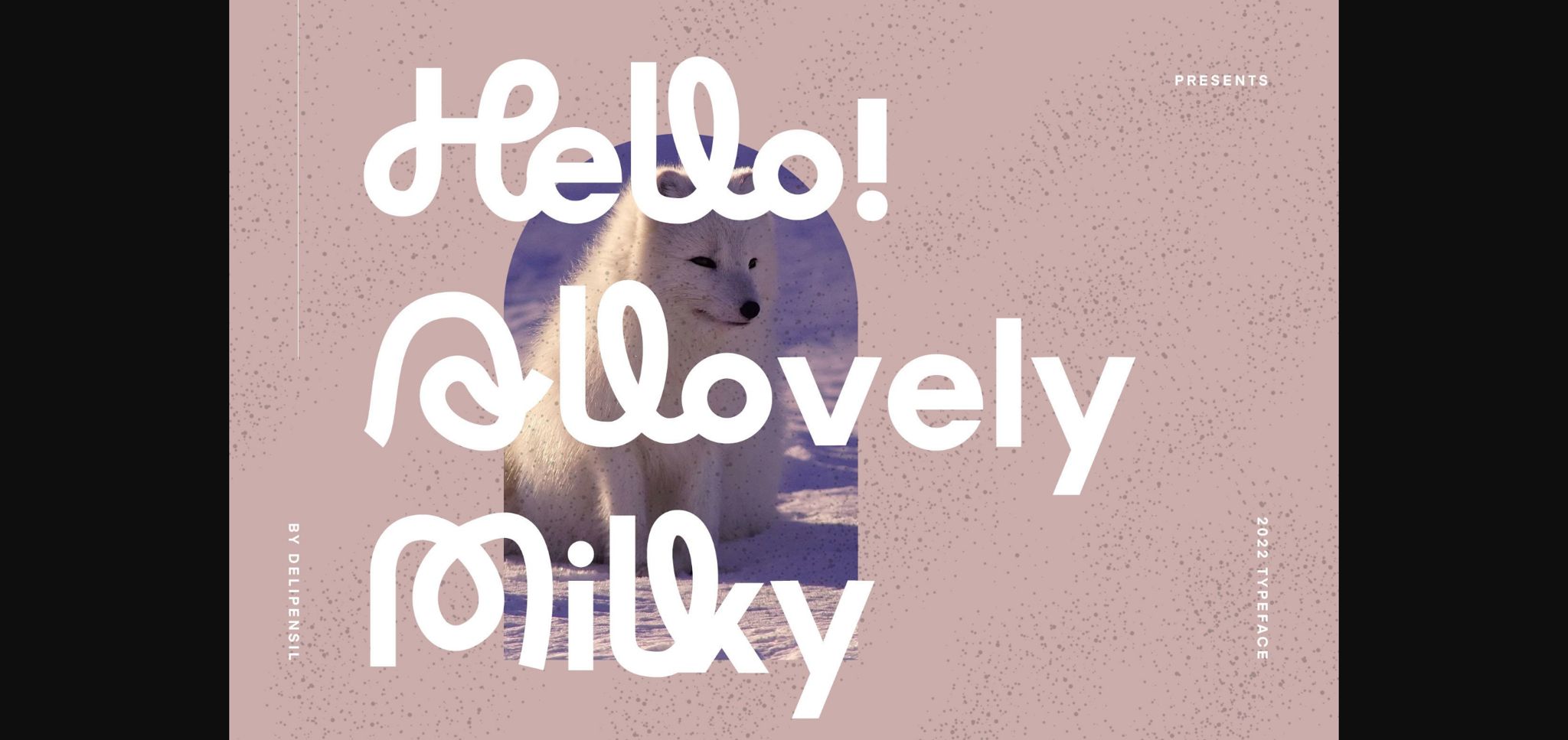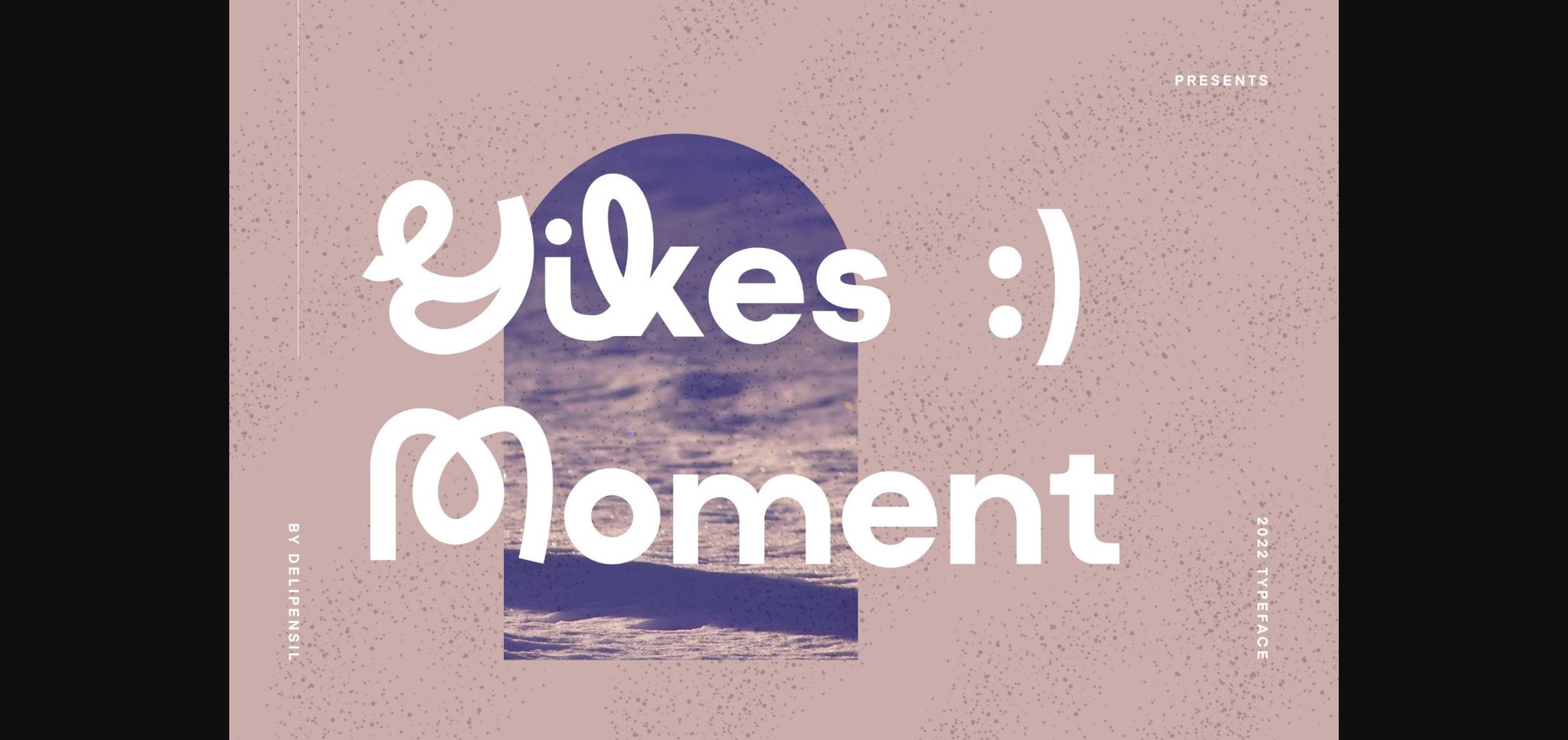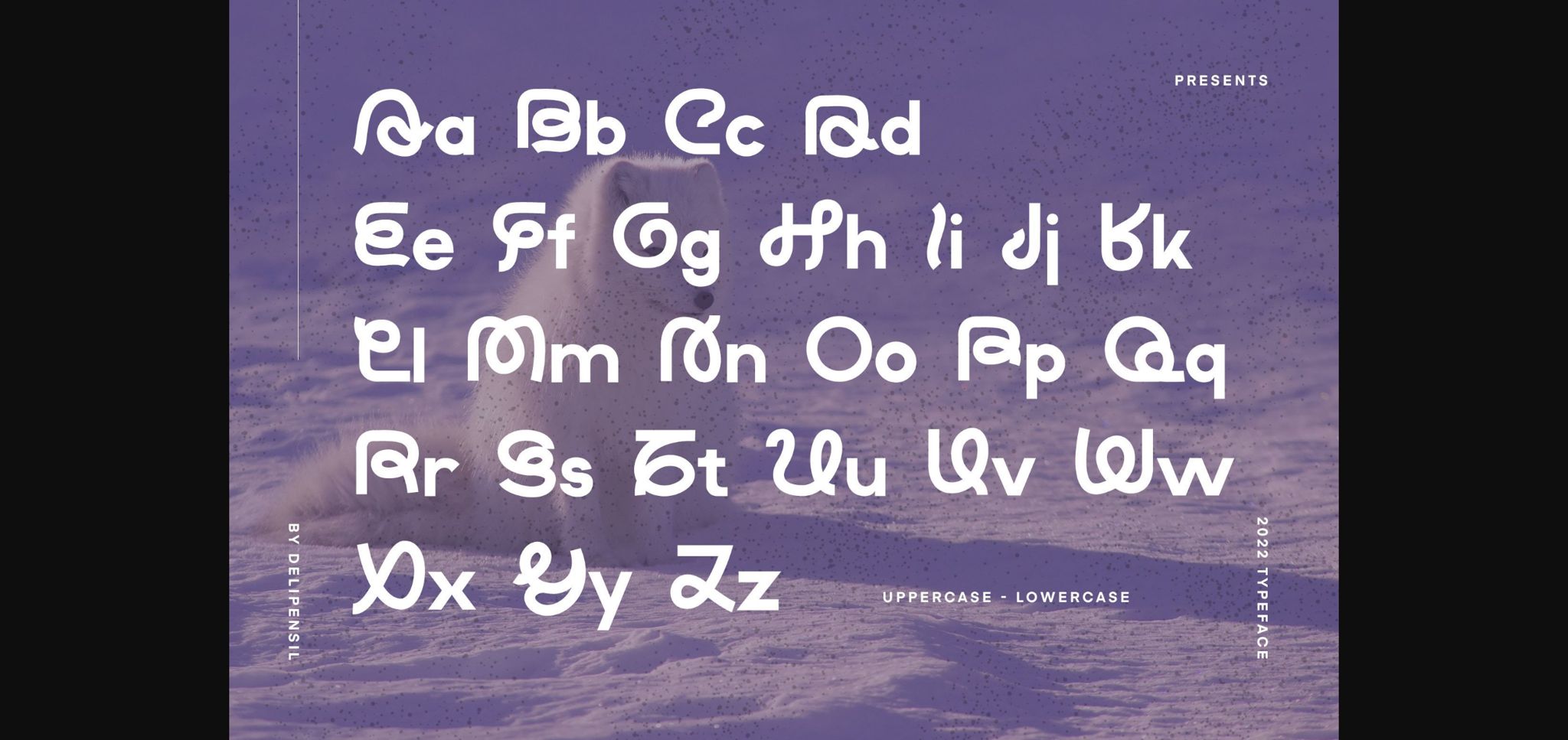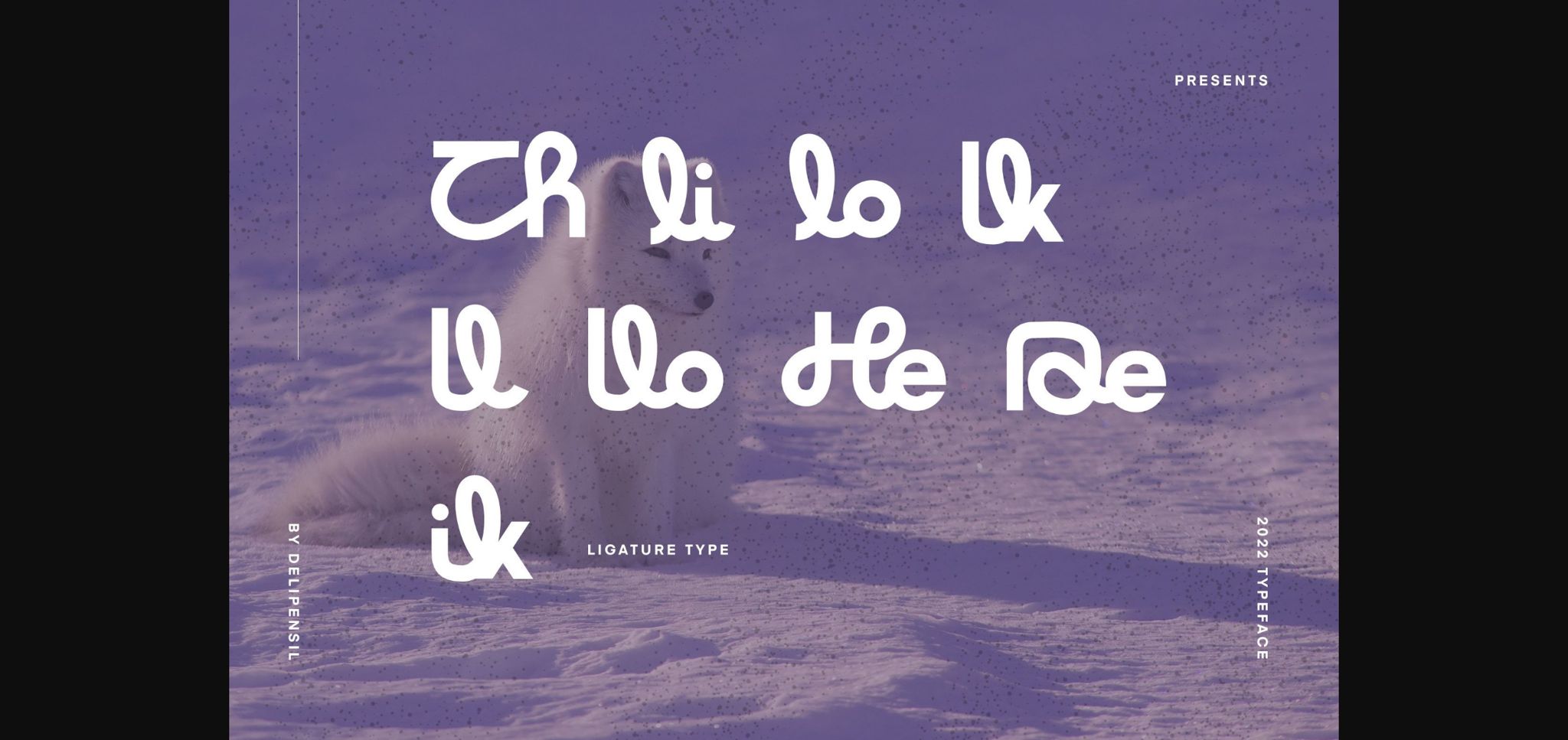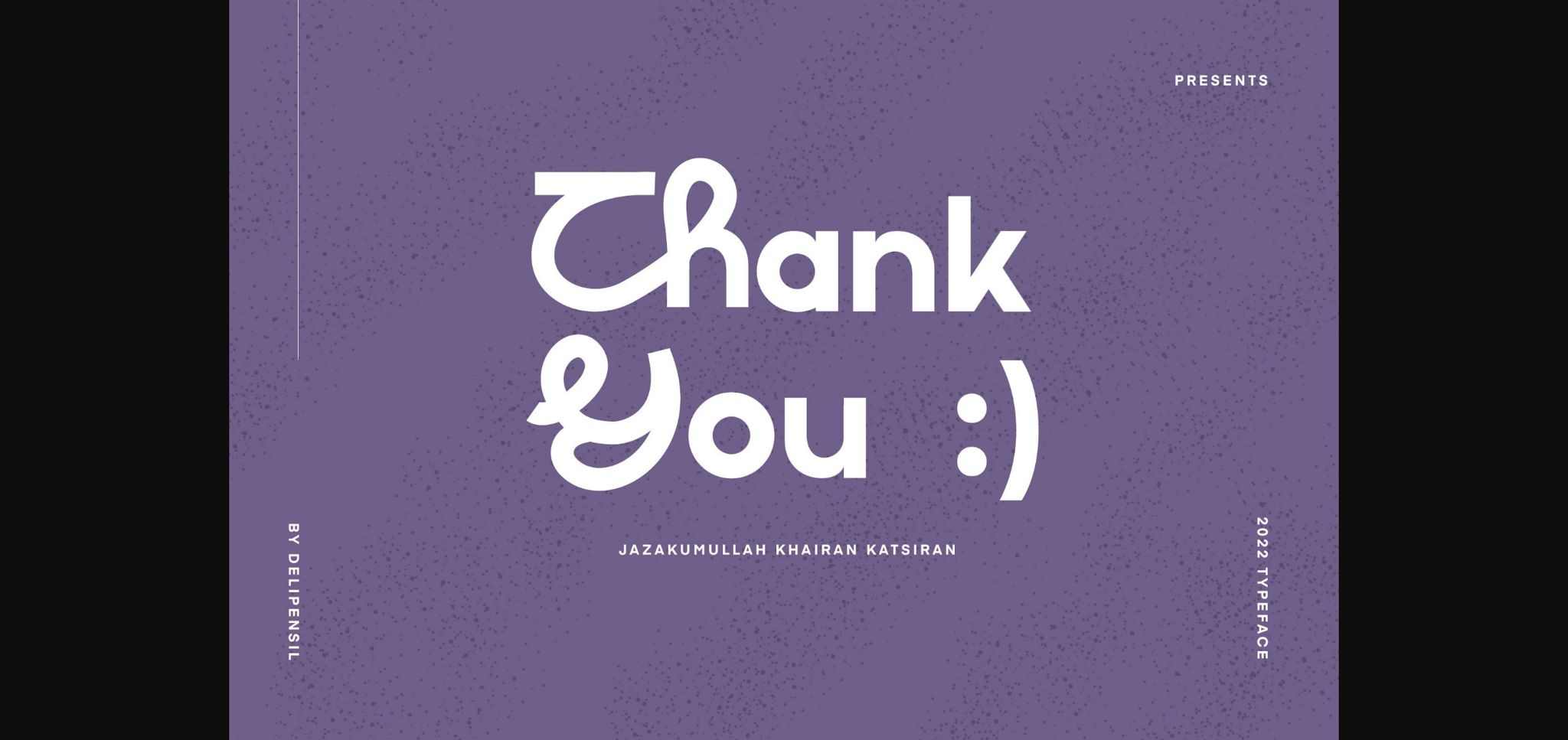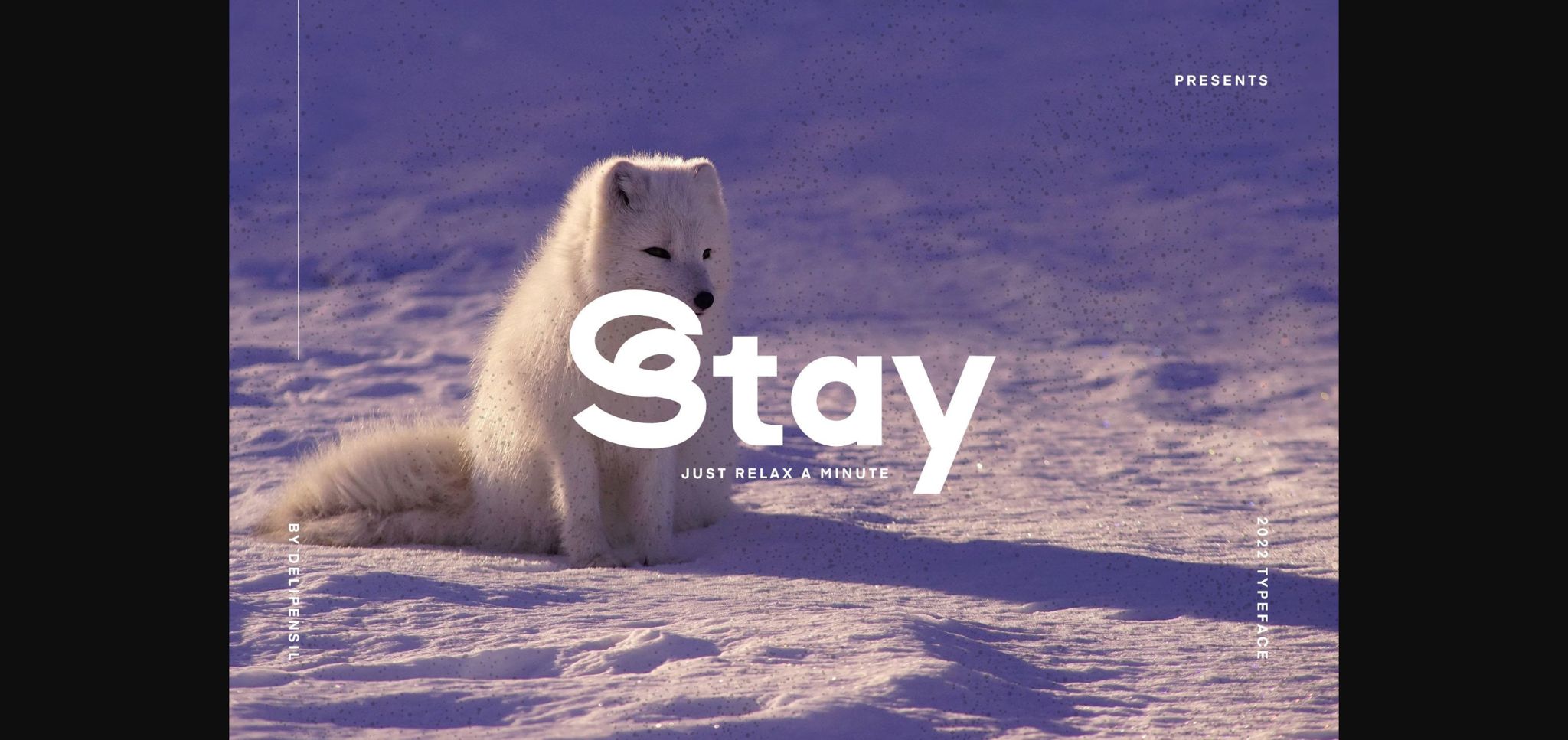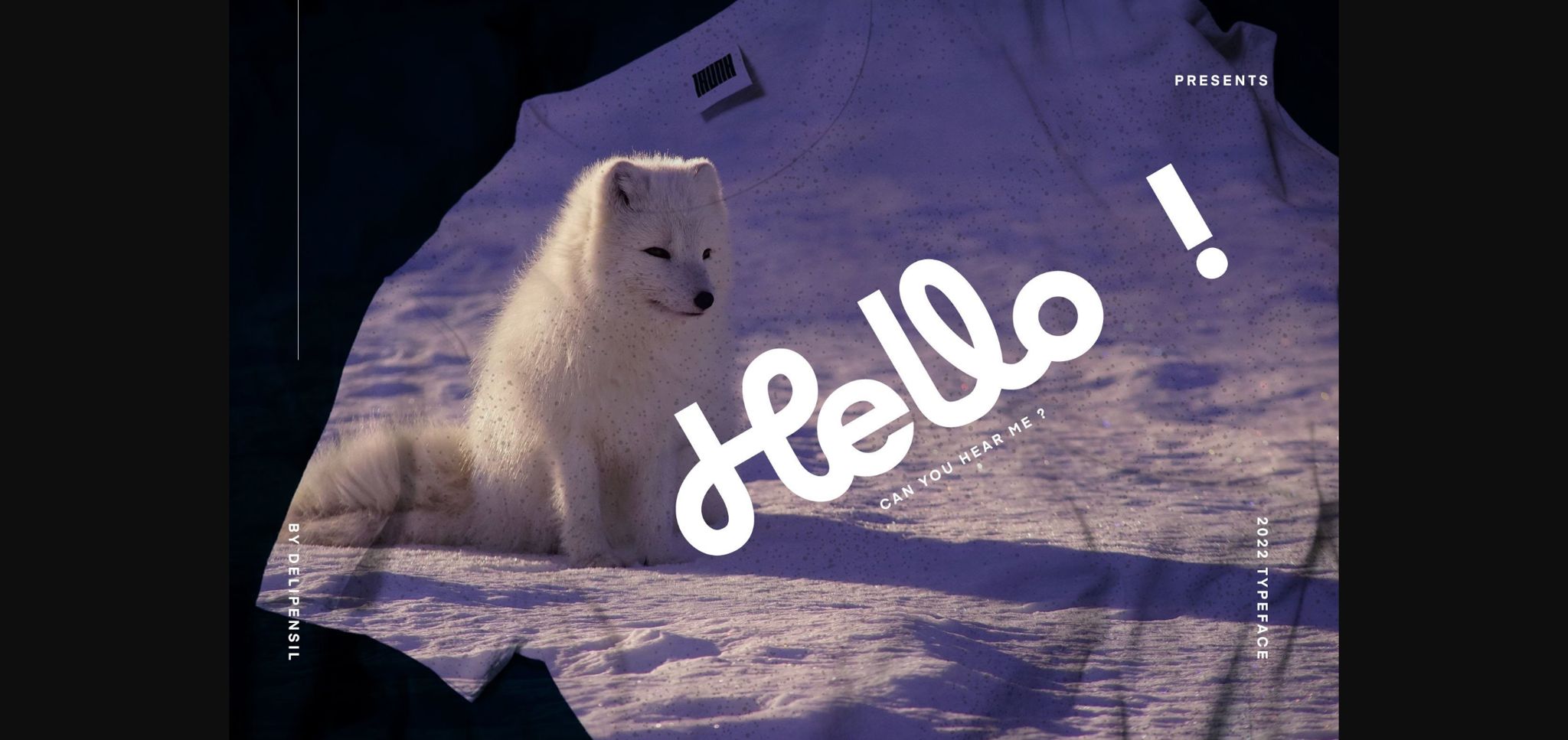
HomeSans Serif FontsAllovely Font Sans Serif Fonts Allovely Font FacebookTwitterPinterestWhatsApp 1 of 9 ... Allovely Font Poster 2... Allovely Font Poster 3... Allovely Font Poster 4... Allovely Font Poster 5... Allovely Font Poster 6... Allovely Font Poster 7... Allovely Font Poster 8... Allovely Font Poster 9... About Allovely Font Allovely is a beautiful sans serif font. It features a clean and classic appearance combined with a sophisticated touch. Use this font for your logo, headline, cover book, or magazine, and make your project unique! DOWNLOAD NOW People also explored Dakota Font Dropled Font Backdrop Thahiyat Font Pocketful of Patriotism Font Boghota Font Athafia Font Brilliant Signature Font Nightmare Font 258 0 TagsAllovely Font Previous articleAstrofly FontNext articleChalk Marks Font LEAVE A REPLY Cancel reply Comment: Please enter your comment! Name:* Please enter your name here Email:* You have entered an incorrect email address! Please enter your email address here Website: Save my name, email, and website in this browser for the next time I comment. Personal Use Free Rasiday Personal Use Free Read more about this font Fifteenth Century Personal Use Free Read more about this font Kellana Personal Use Free Read more about this font Moon Light Personal Use Free Read more about this font BLOG Using Fonts in Digital Marketing: Tips to Strengthen Your Brand Identity In the realm of digital marketing, every visual element plays a crucial role in shaping a brand's identity, and fonts are no exception. The... Transform Your Website: Elevate Your Typography with 7 Best Web Font Generators The 10 Best Handwriting Fonts to Add Personality to Your Designs Free vs Paid Fonts: Why Investing in Premium Fonts Is Worth It